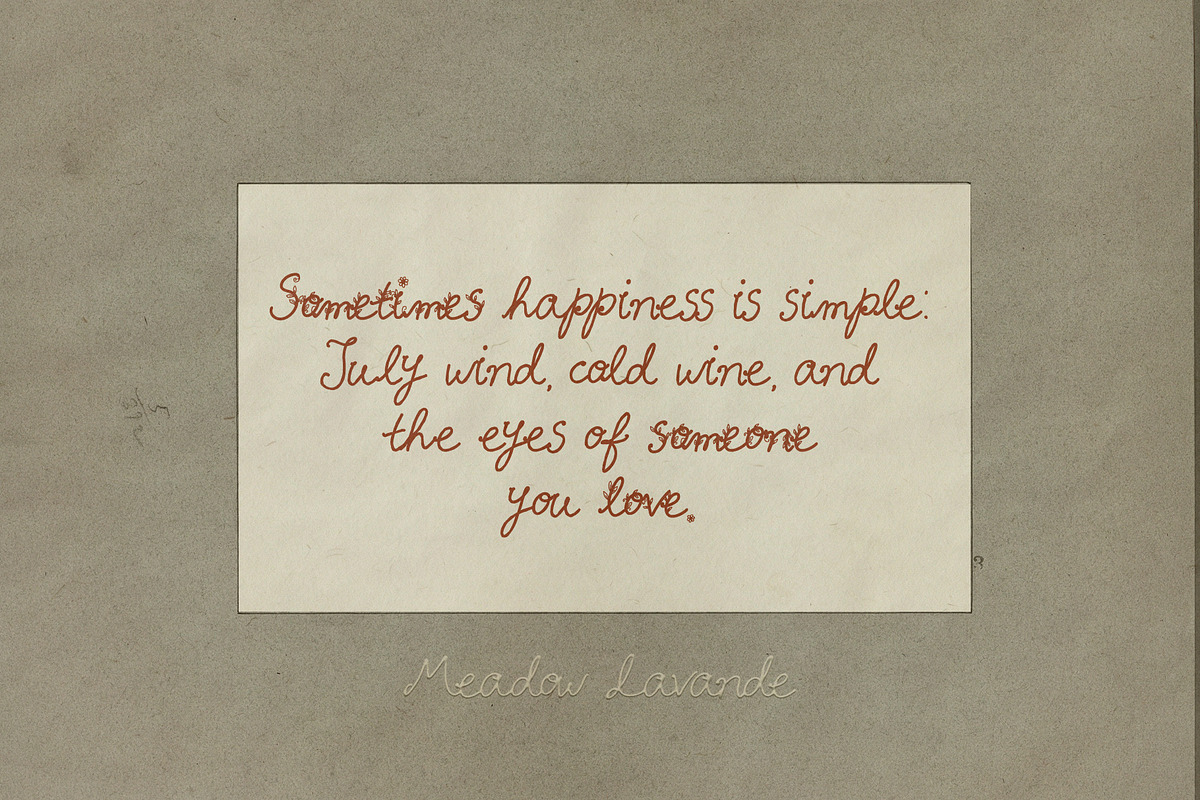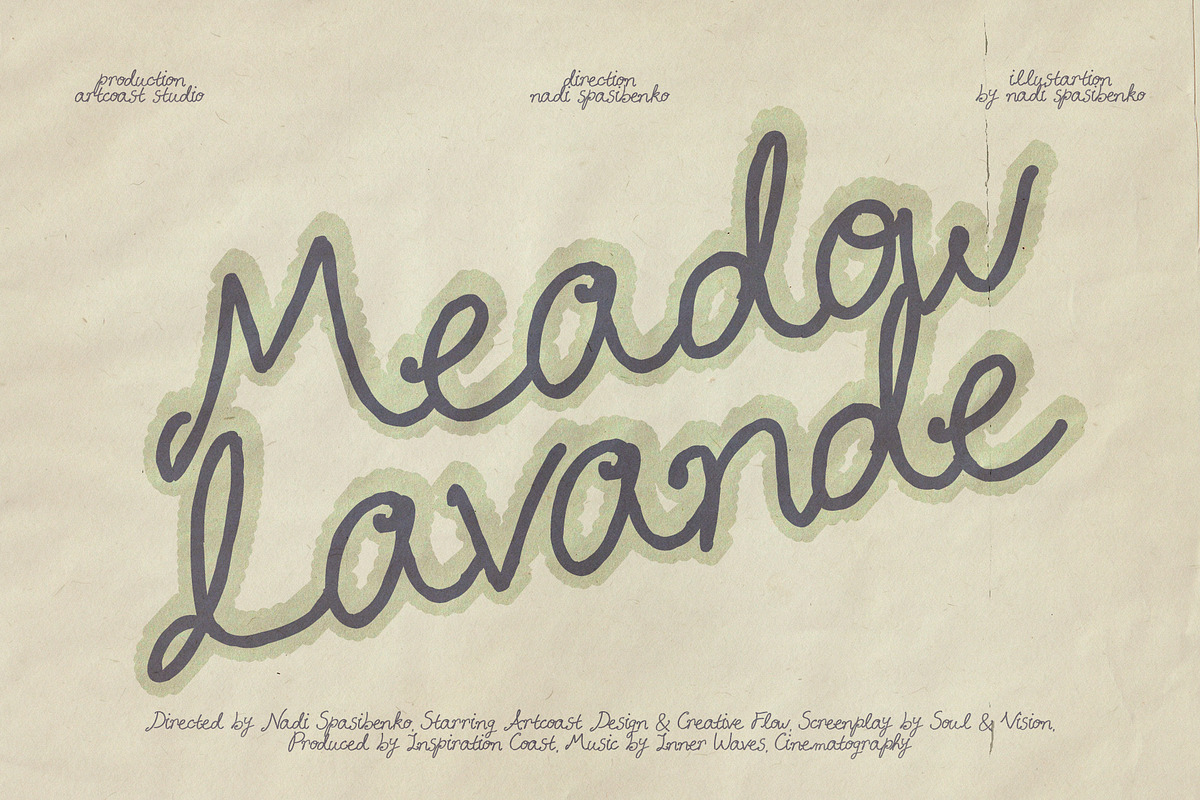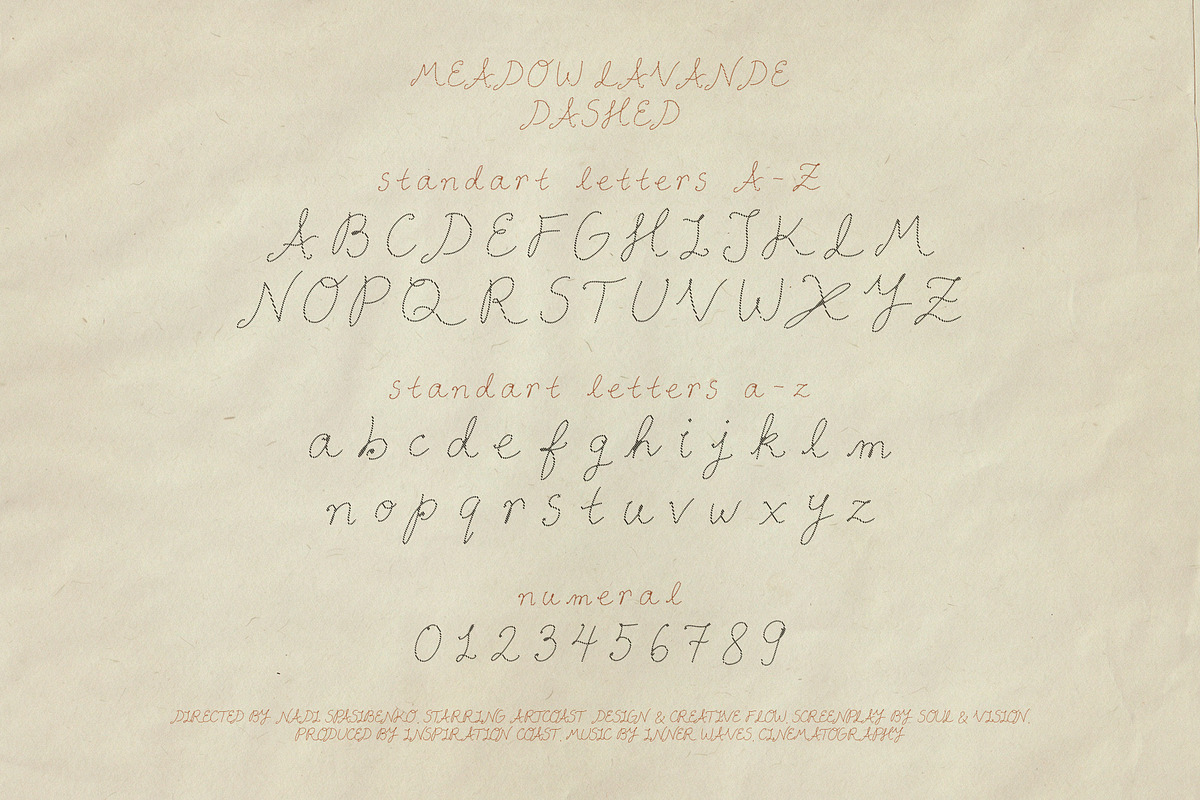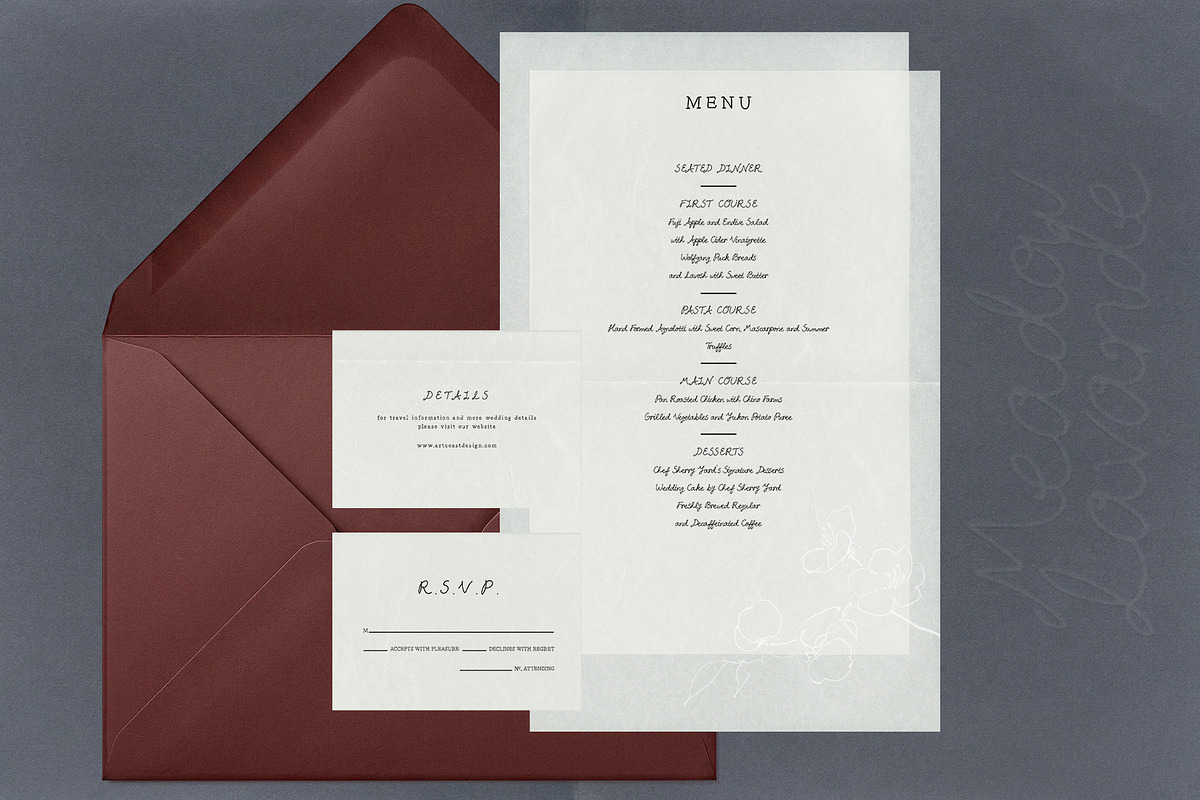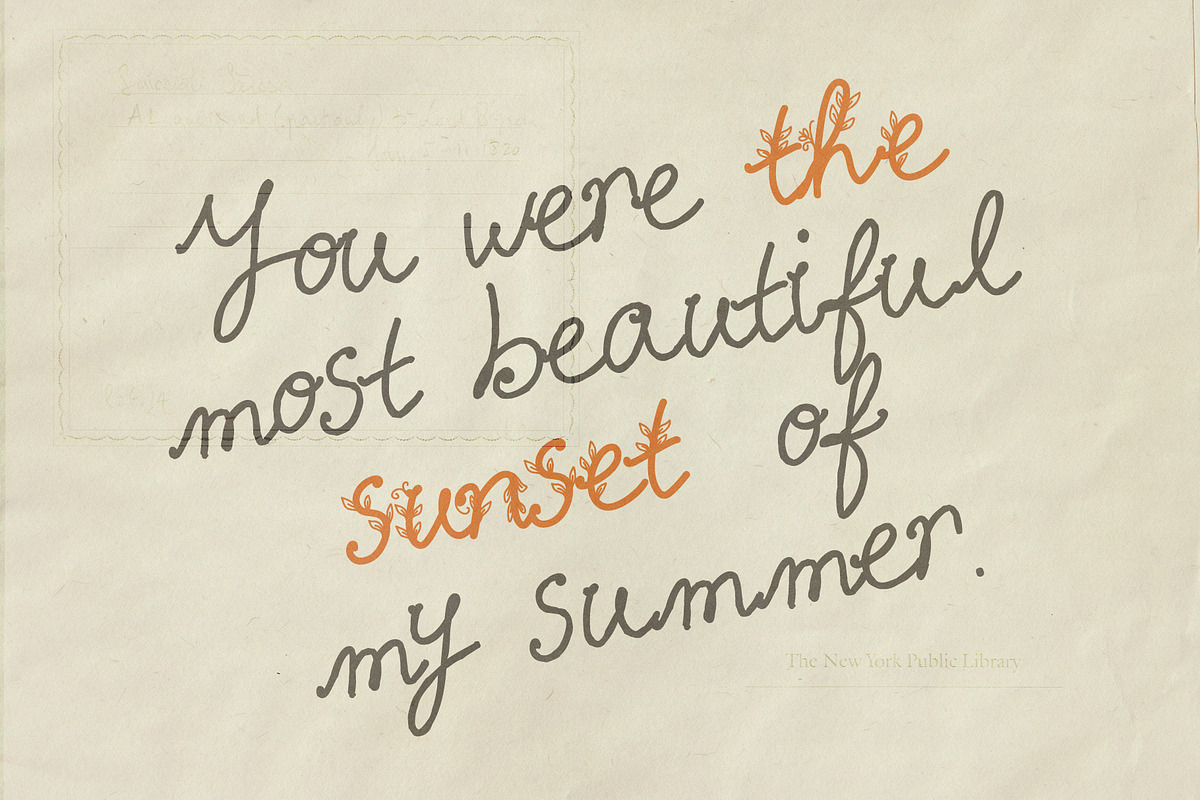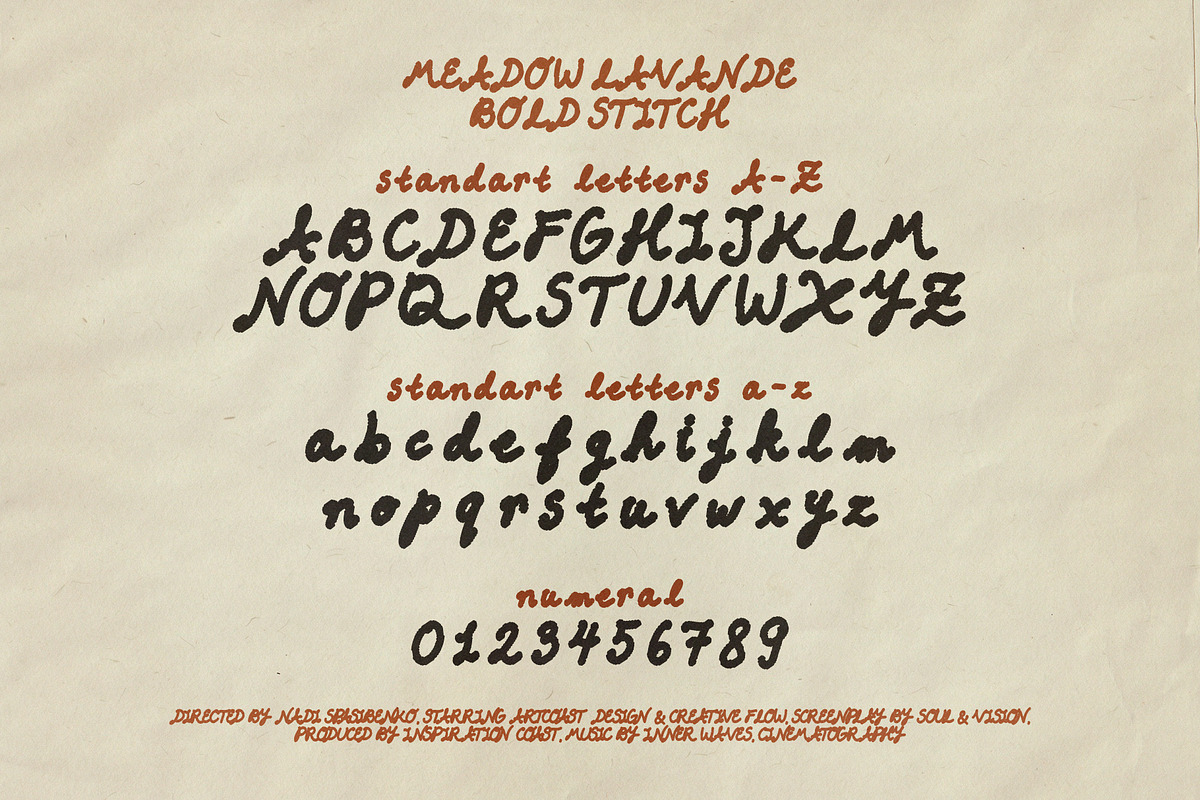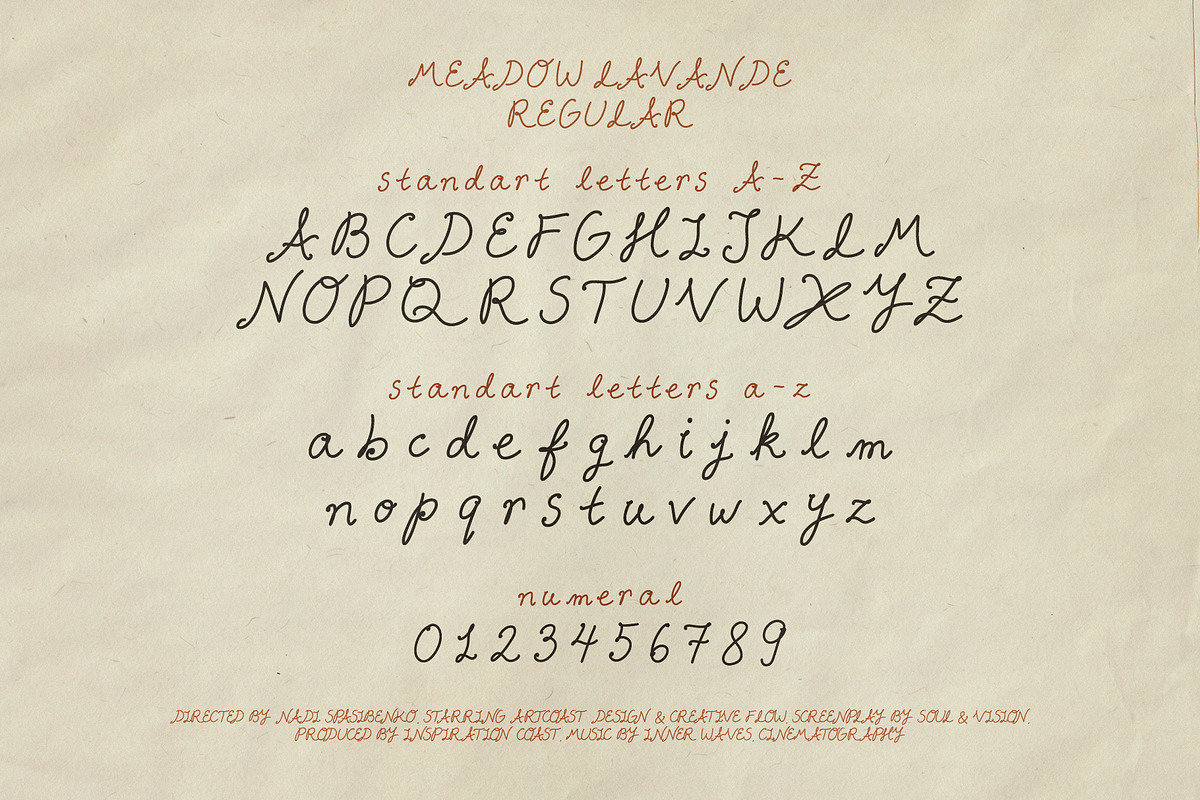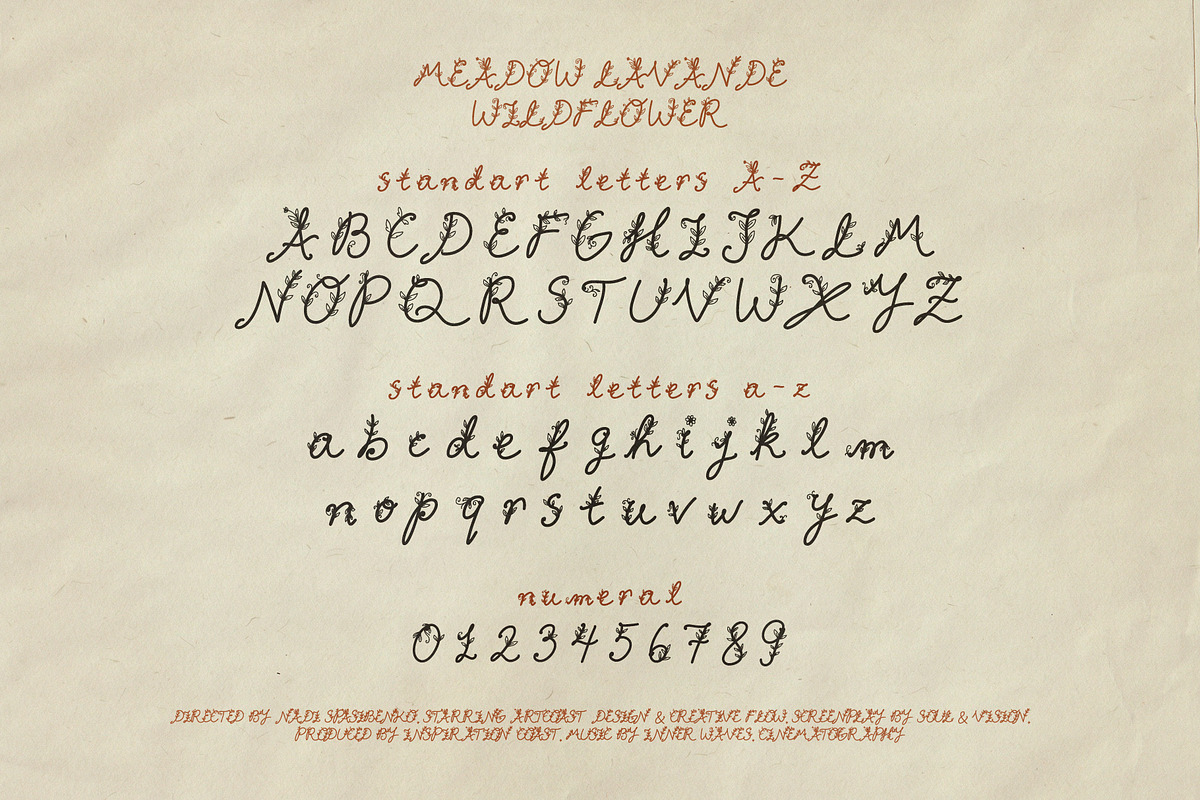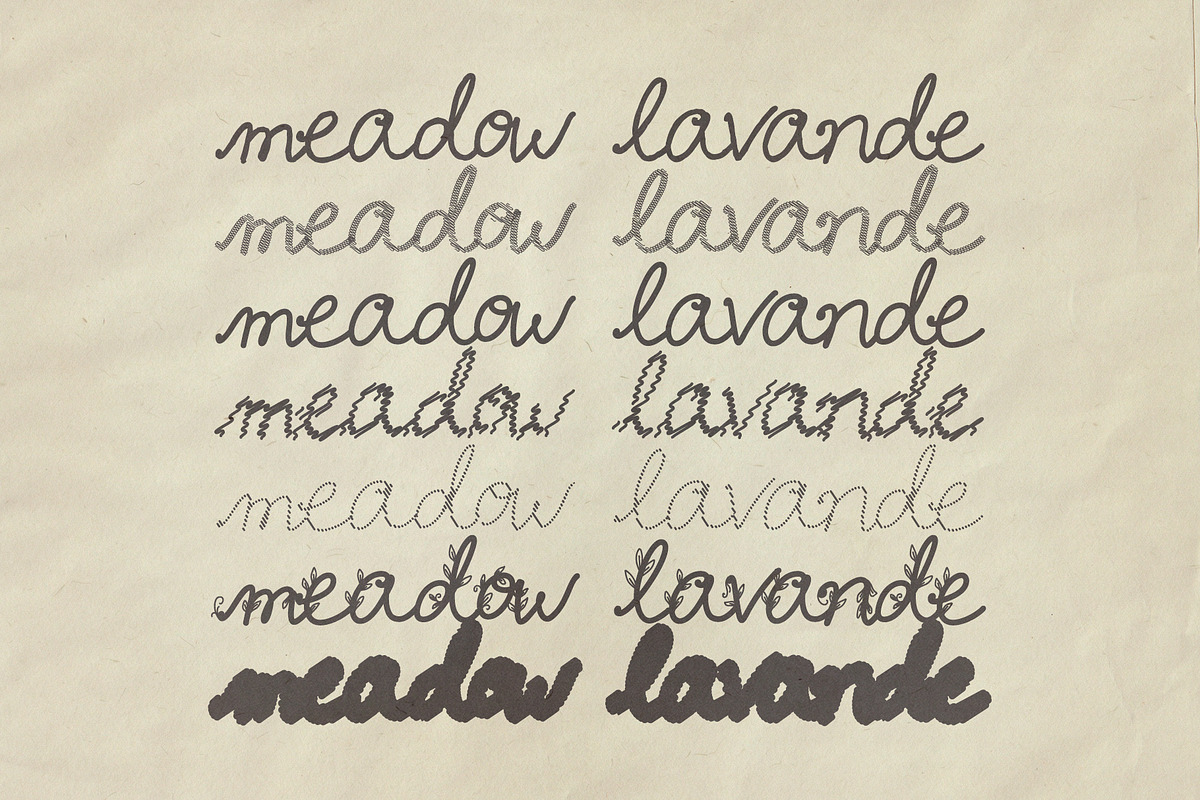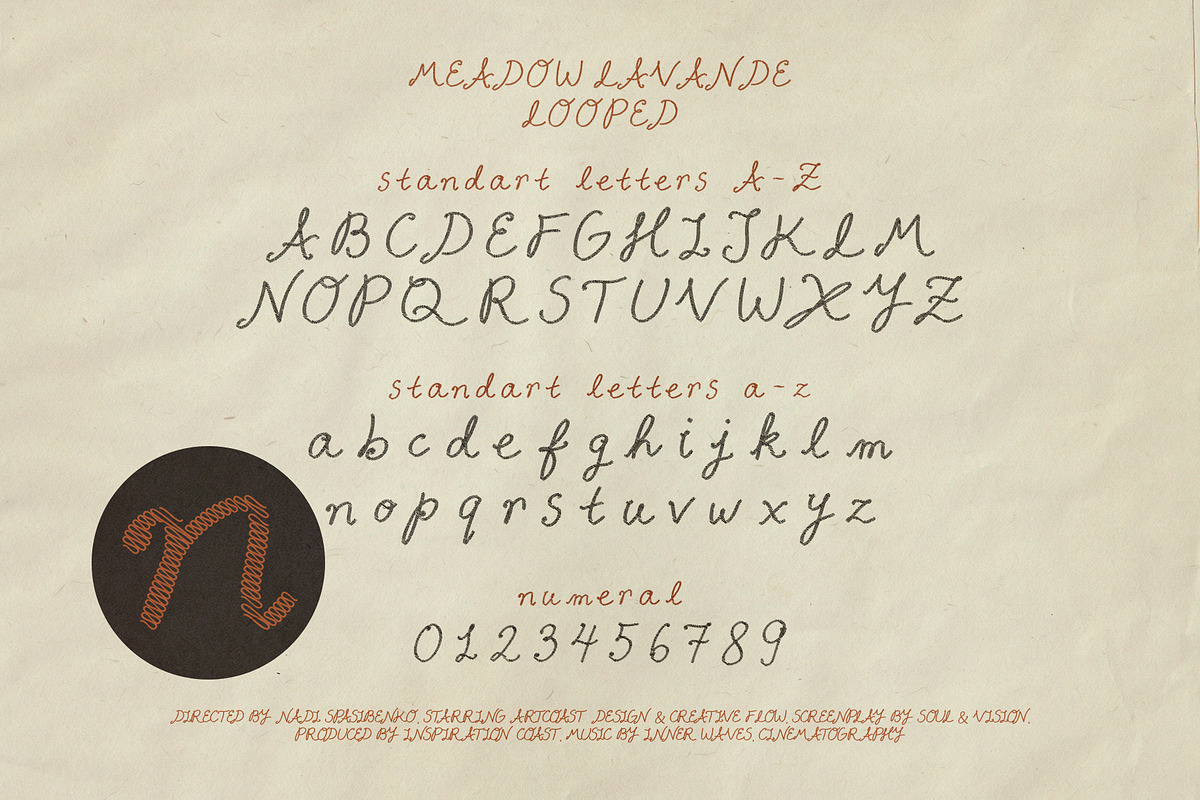
Meadow Lavande - Romantic Font
Meadow Lavande is a romantic handcrafted font family inspired by lavender fields, vintage embroidery, botanical sketches, and slow countryside aesthetics. The collection includes several unique styles: elegant Regular, textured Brush, delicate Dashed, artistic Stitch, playful Bold Stitch, and decorative Wildflower variations with floral details.
Designed with a soft handmade feeling, Meadow Lavande works beautifully for:
branding & logos
feminine packaging
wedding invitations
beauty & skincare brands
café menus
editorial layouts
social media graphics
botanical projects
cottagecore aesthetics
embroidery-inspired designs
handmade product labels
posters & quote designs
Handmade textured details
Meadow Lavande combines elegance with an imperfect organic touch, creating a warm artistic atmosphere perfect for modern vintage-inspired design projects.